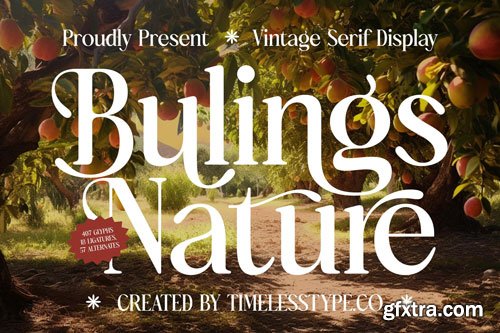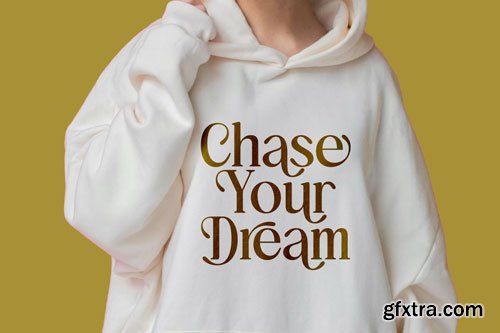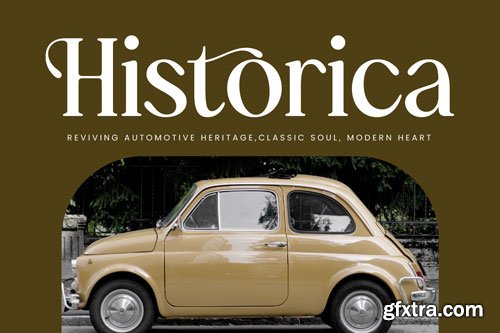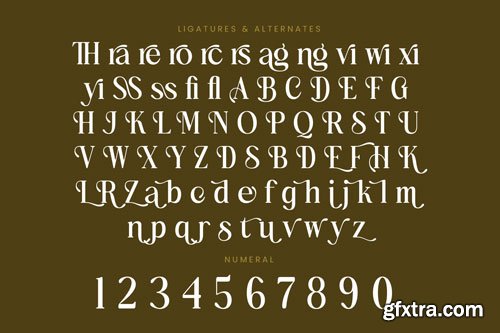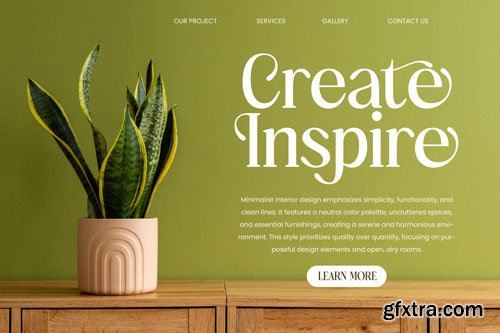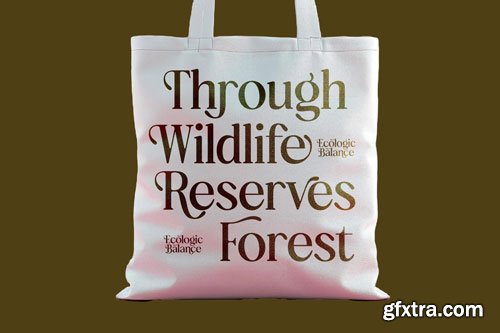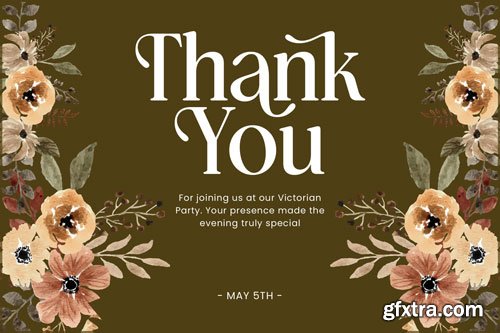
Bulings Nature - Vintage Serif Display , from Timelesstype, Suitable for any projects such as: logos, branding projects, homeware designs, product packaging, mugs, quotes, posters, shopping bags, t-shirts, book covers, name card, invitation cards, greeting cards, label, photography, watermark, special events, and all your other luxury and beautiful projects that need a Luxury Serif taste.